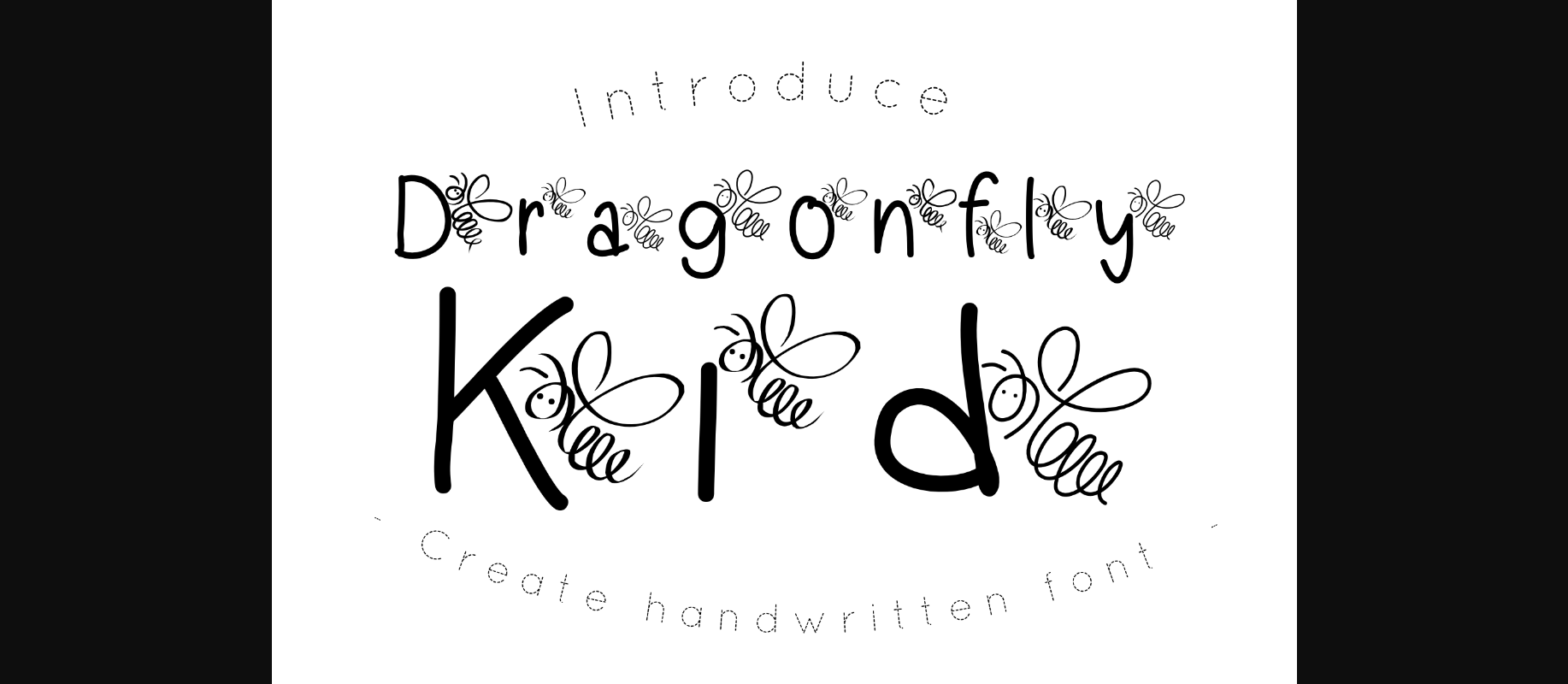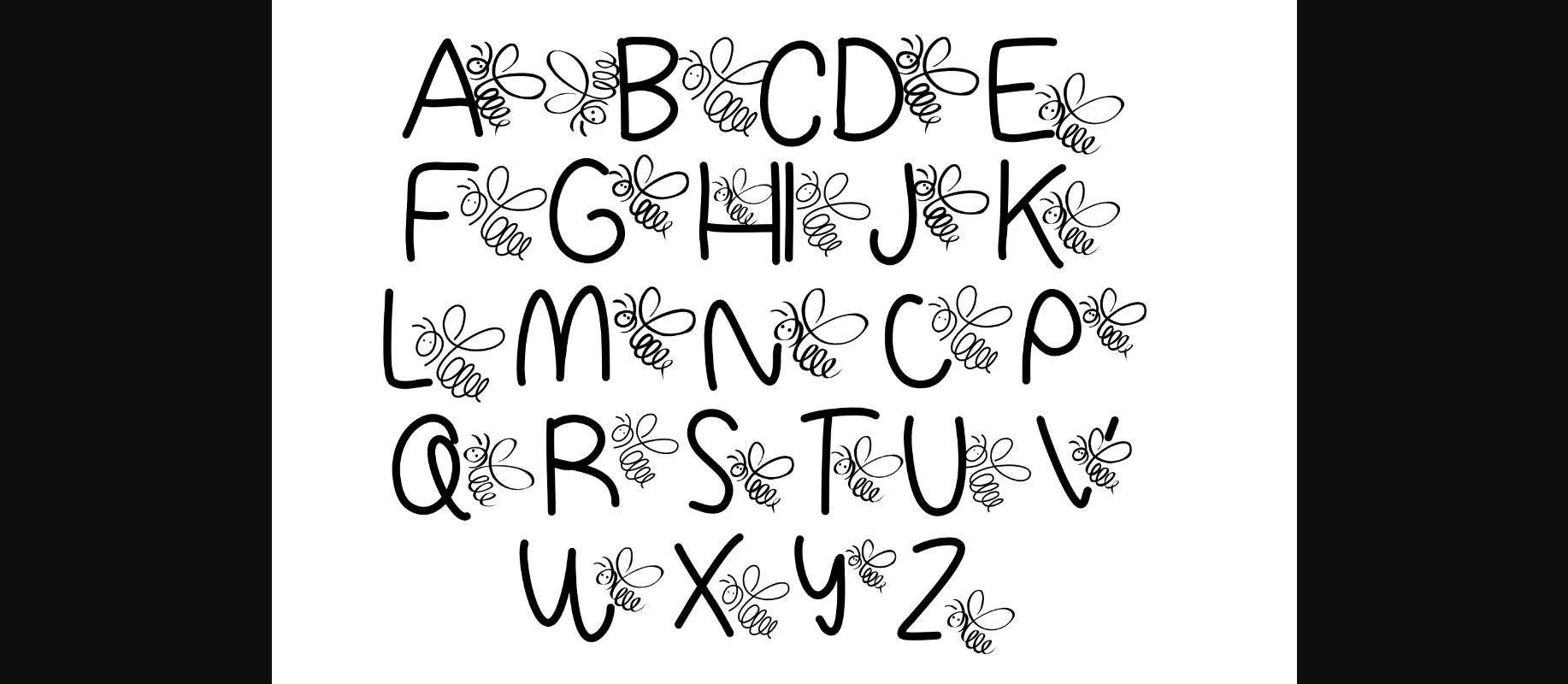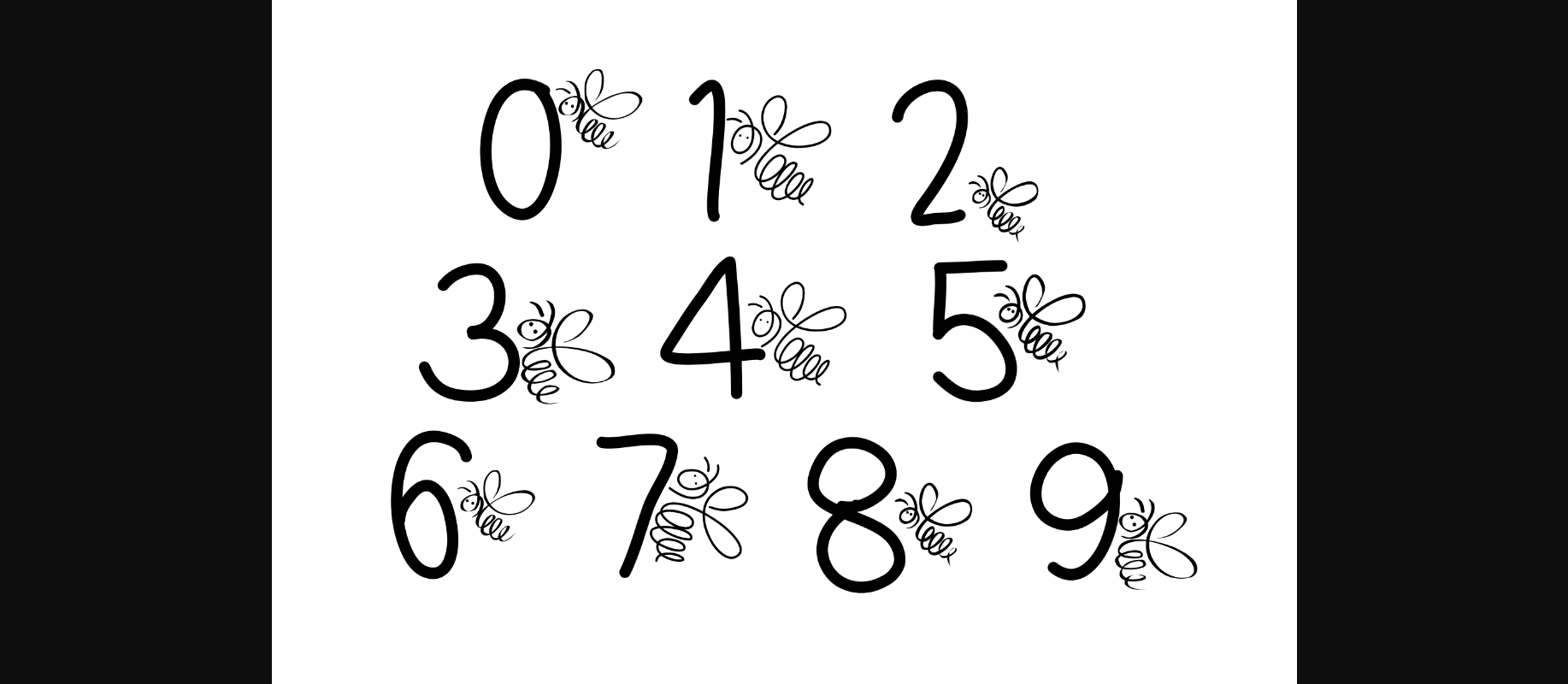
Dragonfly Kid Font
About Dragonfly Kid Font
Dragonfly Kid is an incredibly unique and interesting decorative font, featuring dragonfly ornaments. Whether you’re looking for fonts for Instagram or calligraphy scripts for DIY projects, this font will turn any creative idea into a true piece of art!